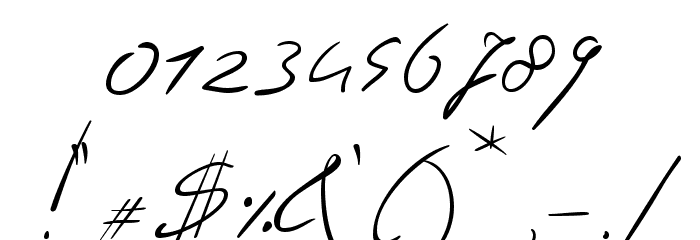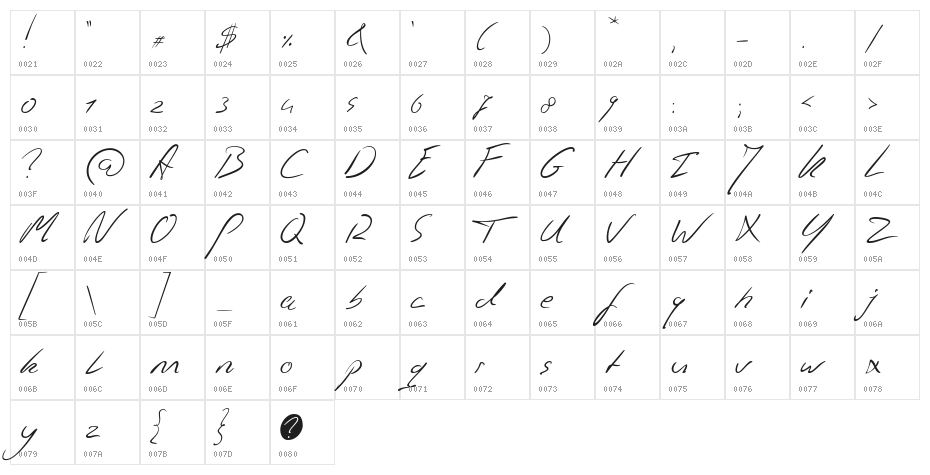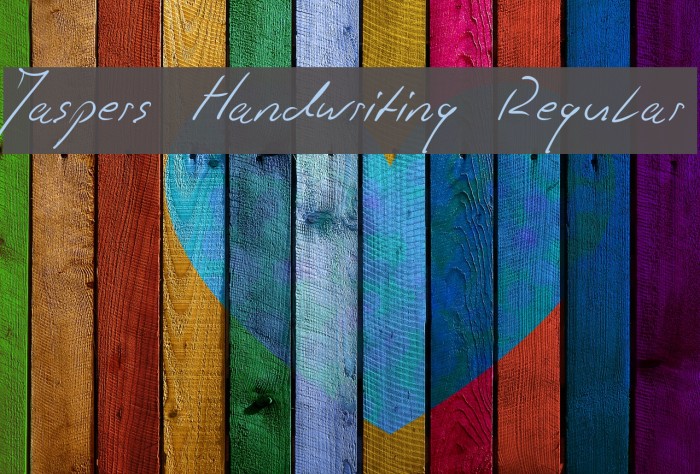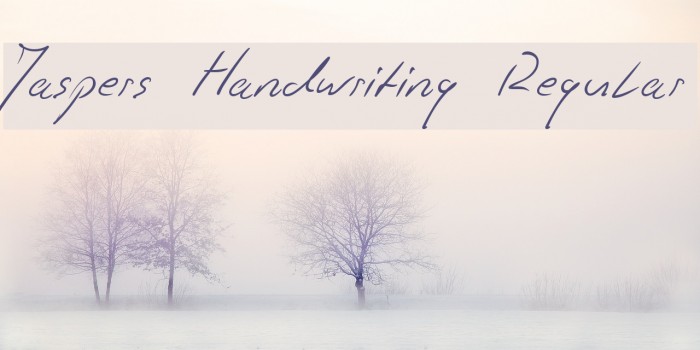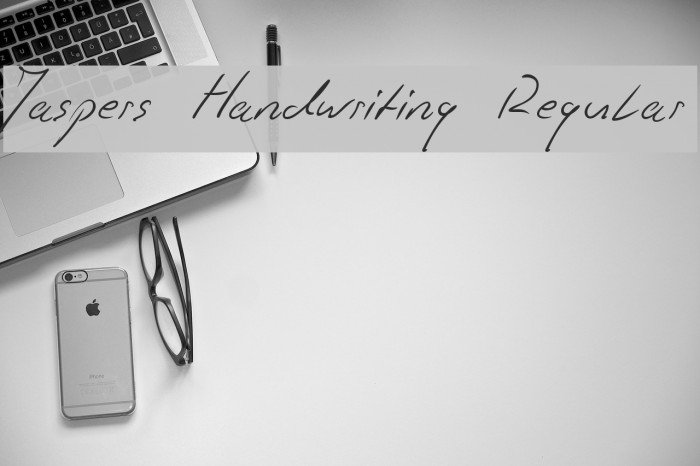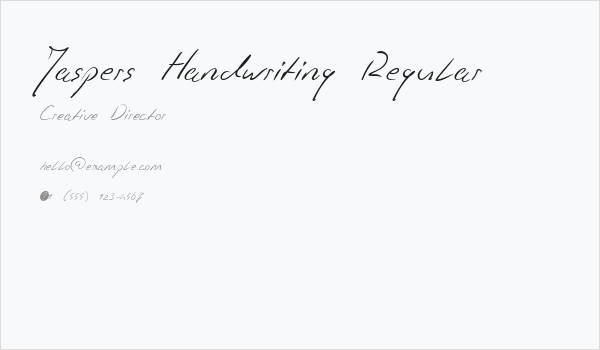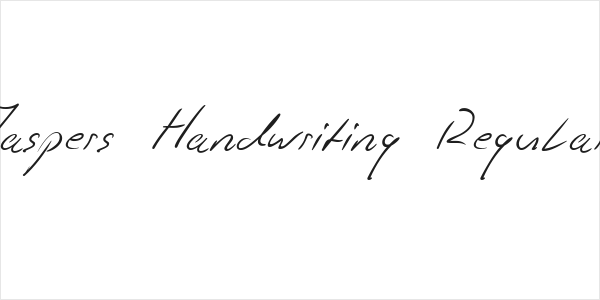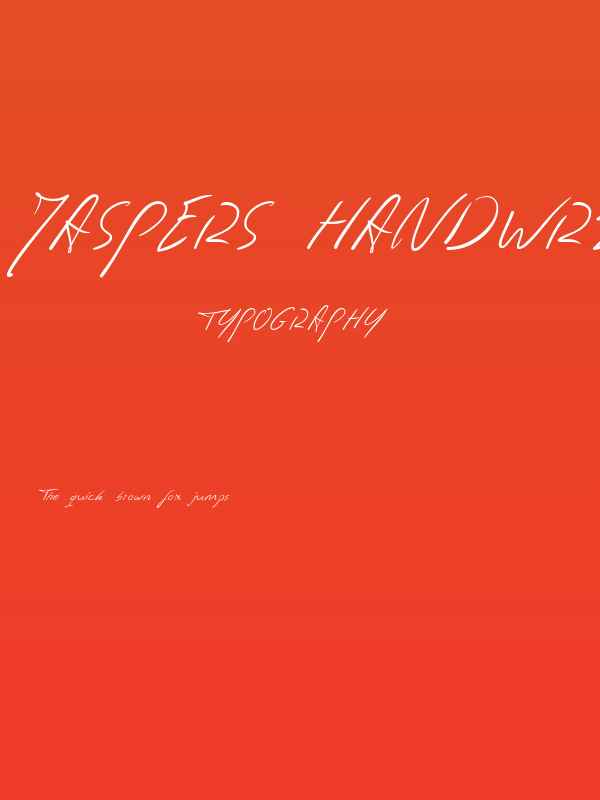
Jaspers Handwriting Regular Font
Jaspers Handwriting Regular Description
This font exudes a personal and artistic flair, reminiscent of elegant handwriting. The characters are fluid and connected, with a natural flow that mimics the strokes of a pen. The uppercase letters are bold and slightly slanted, giving a sense of movement and dynamism. The lowercase letters maintain a consistent style, with smooth curves and loops that enhance readability. Numbers and special characters are crafted with the same attention to detail, ensuring a cohesive look throughout. This font is perfect for projects that require a touch of sophistication and personality.
| Overall Style | Elegant, Artistic |
| Proposed Projects | Ideal for wedding invitations, personal branding, greeting cards, and artistic projects. |